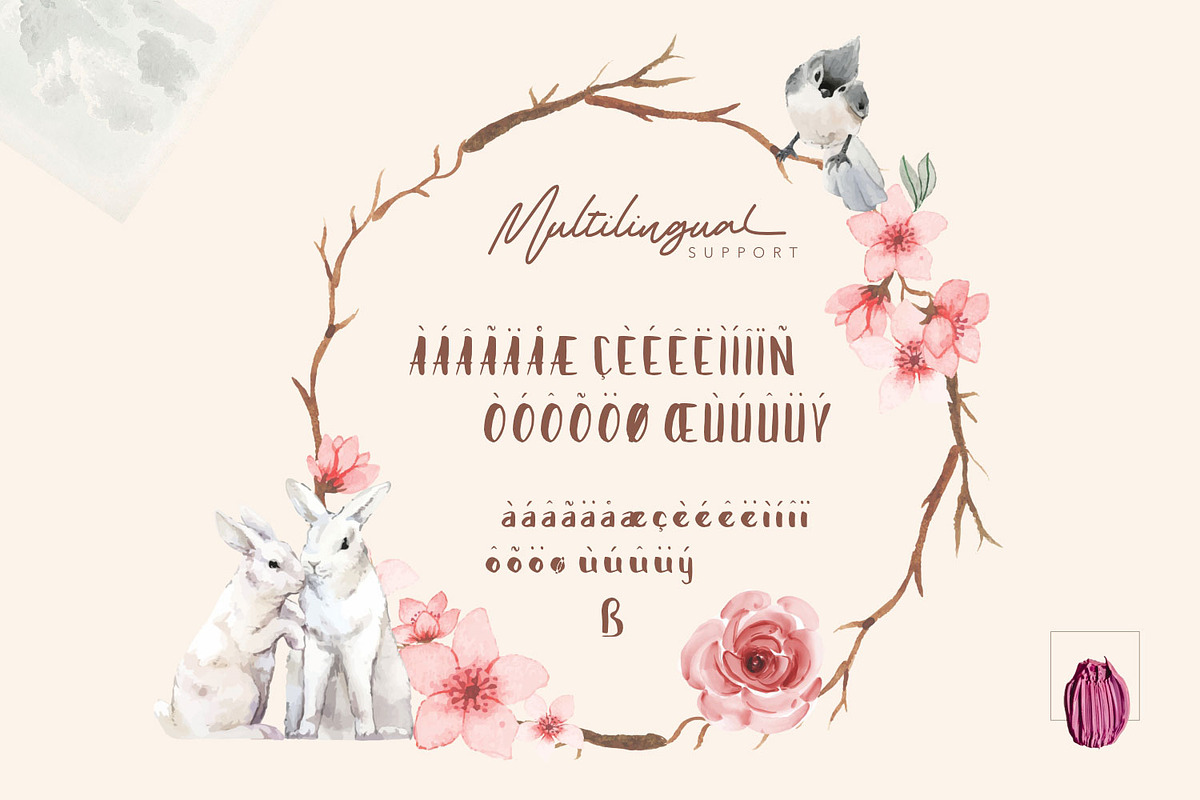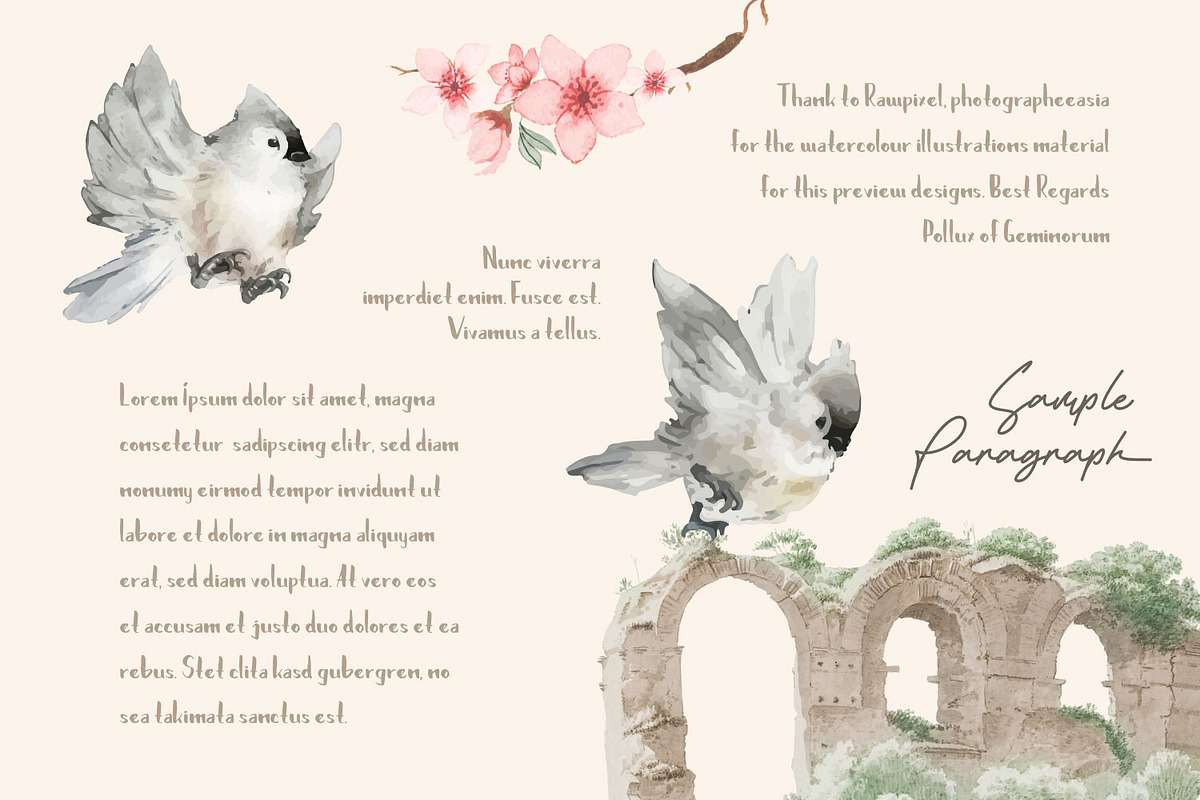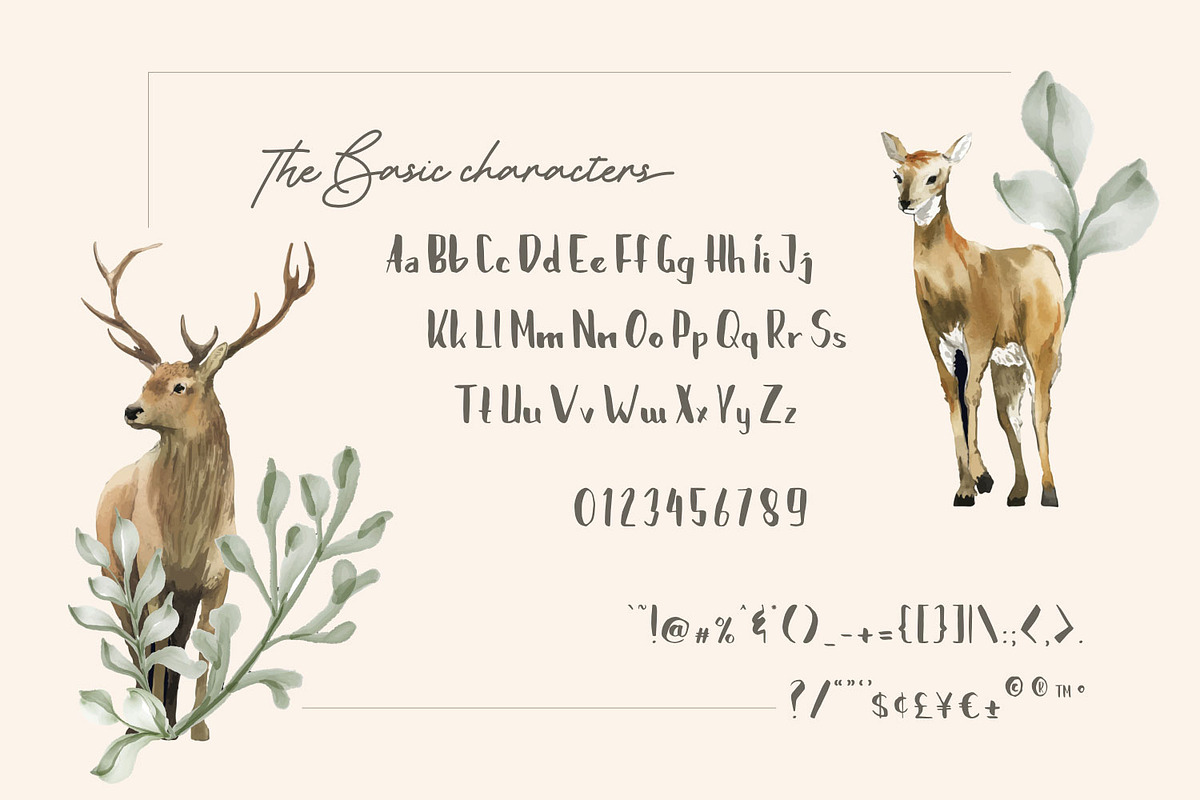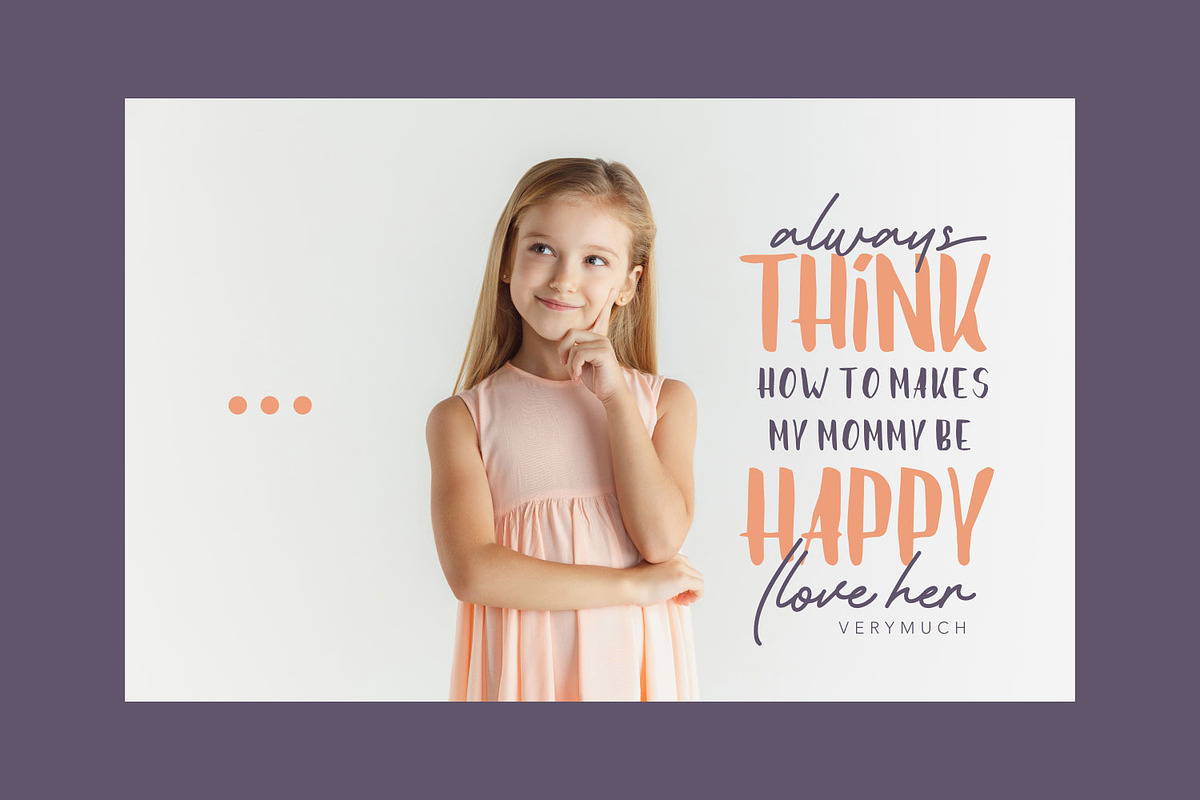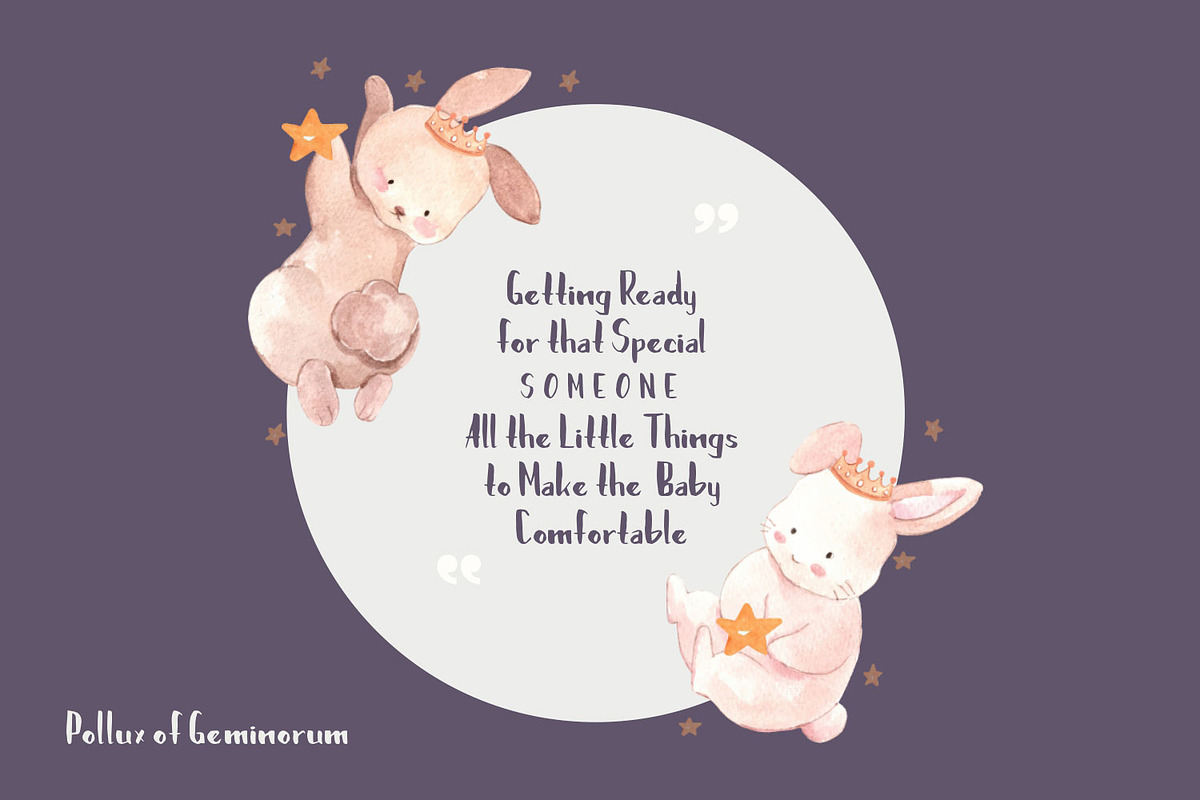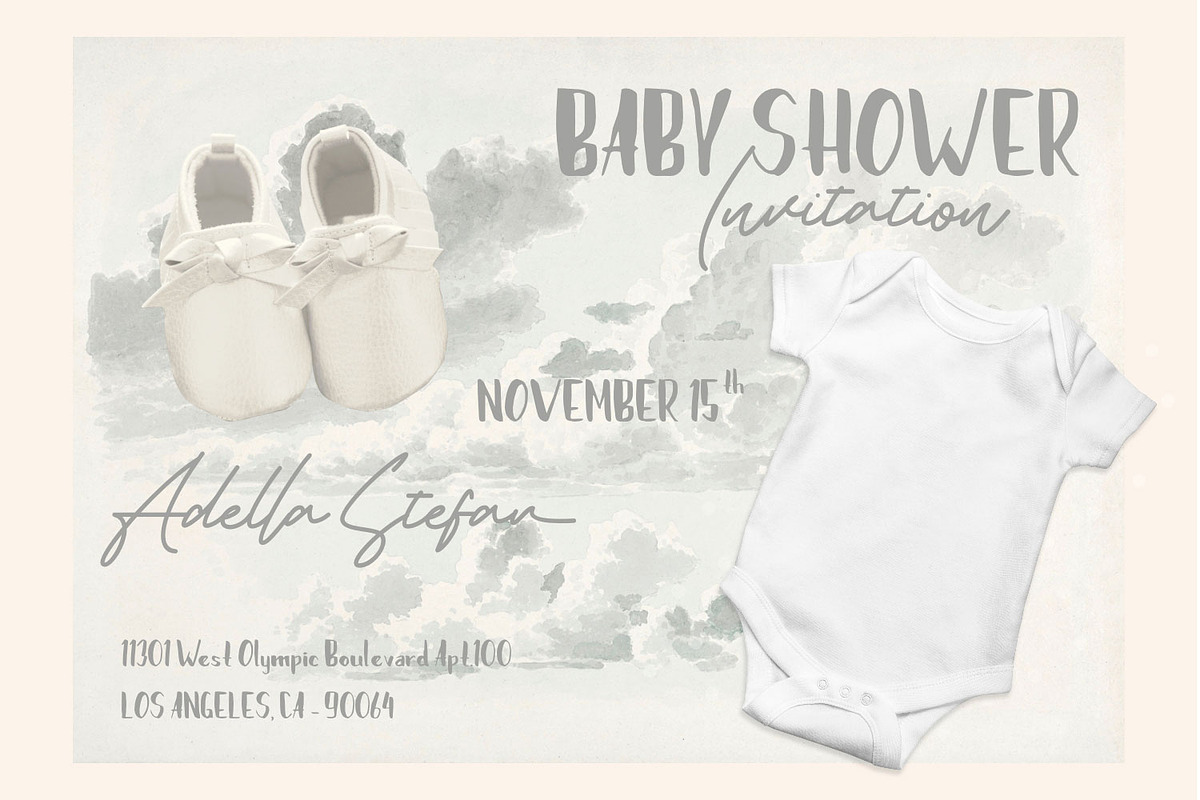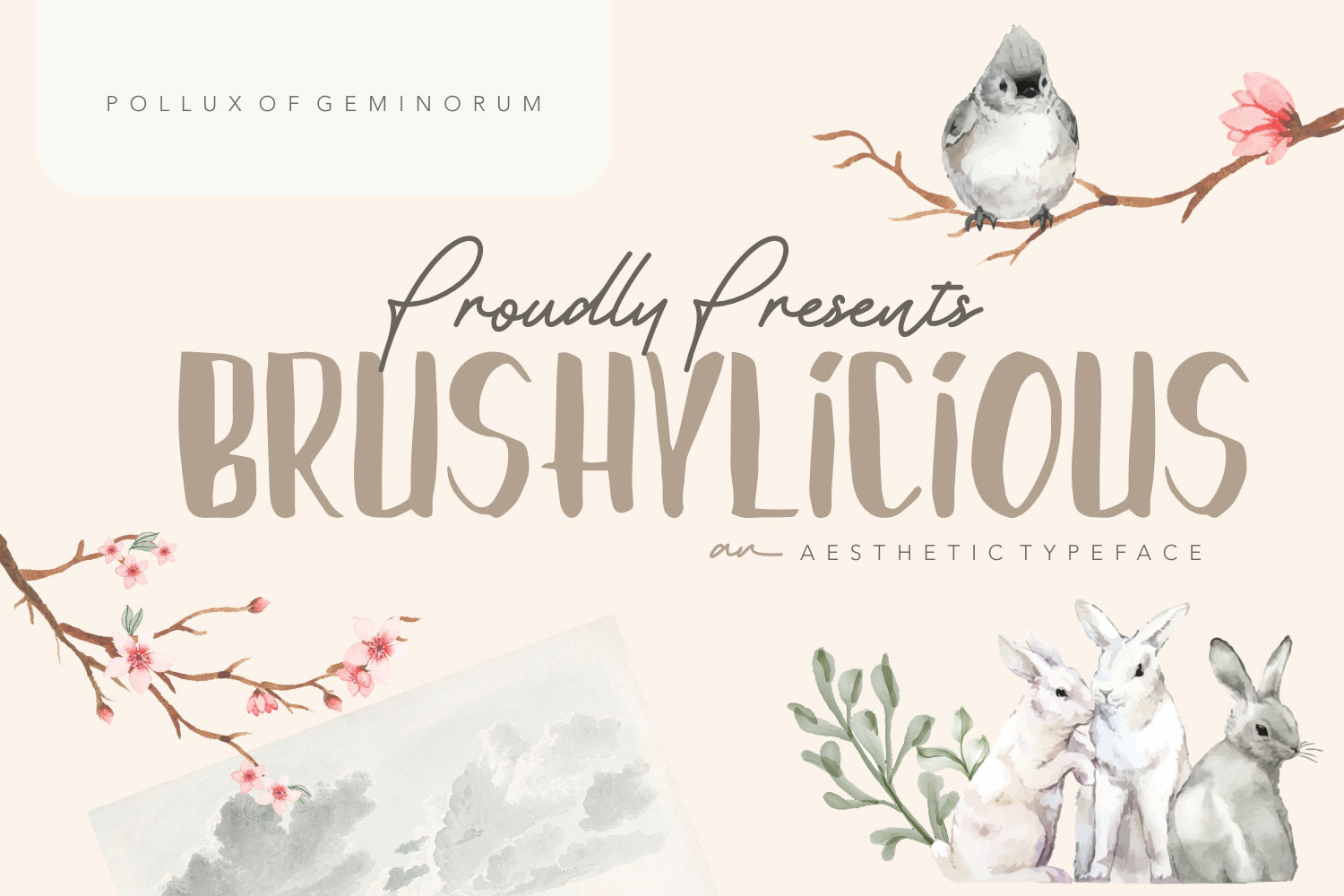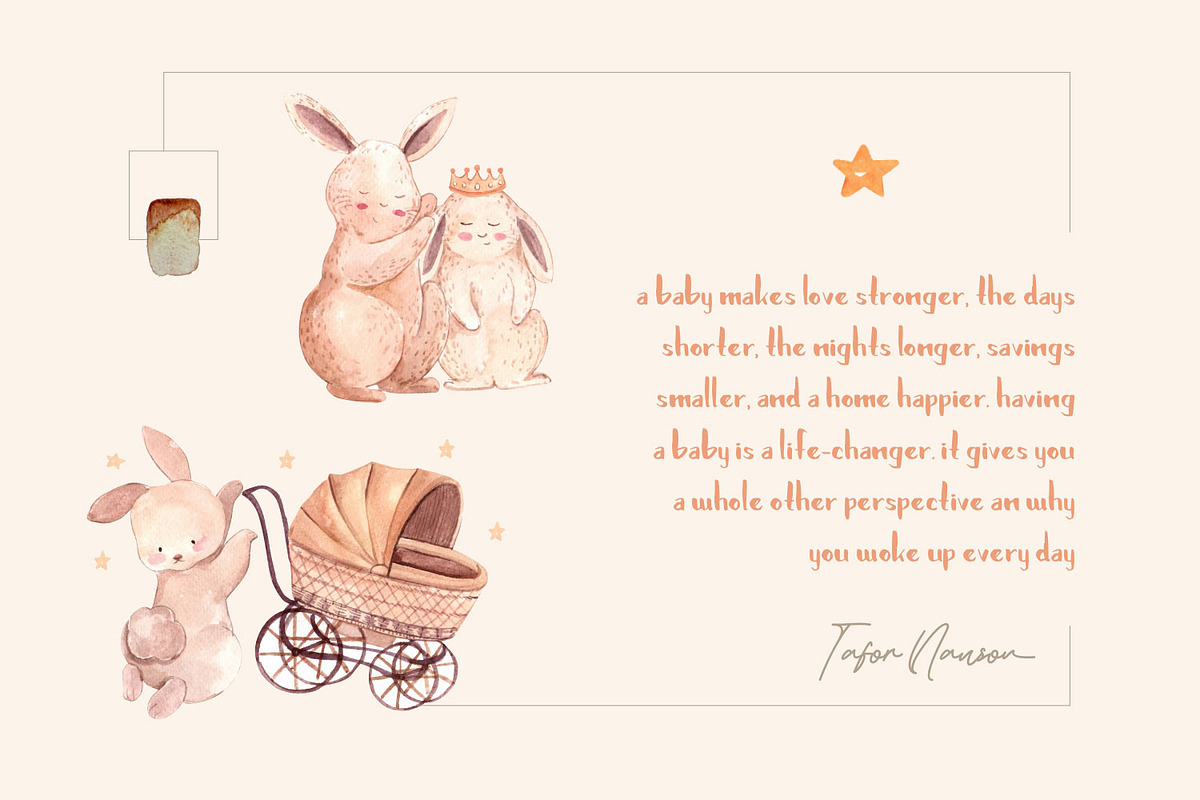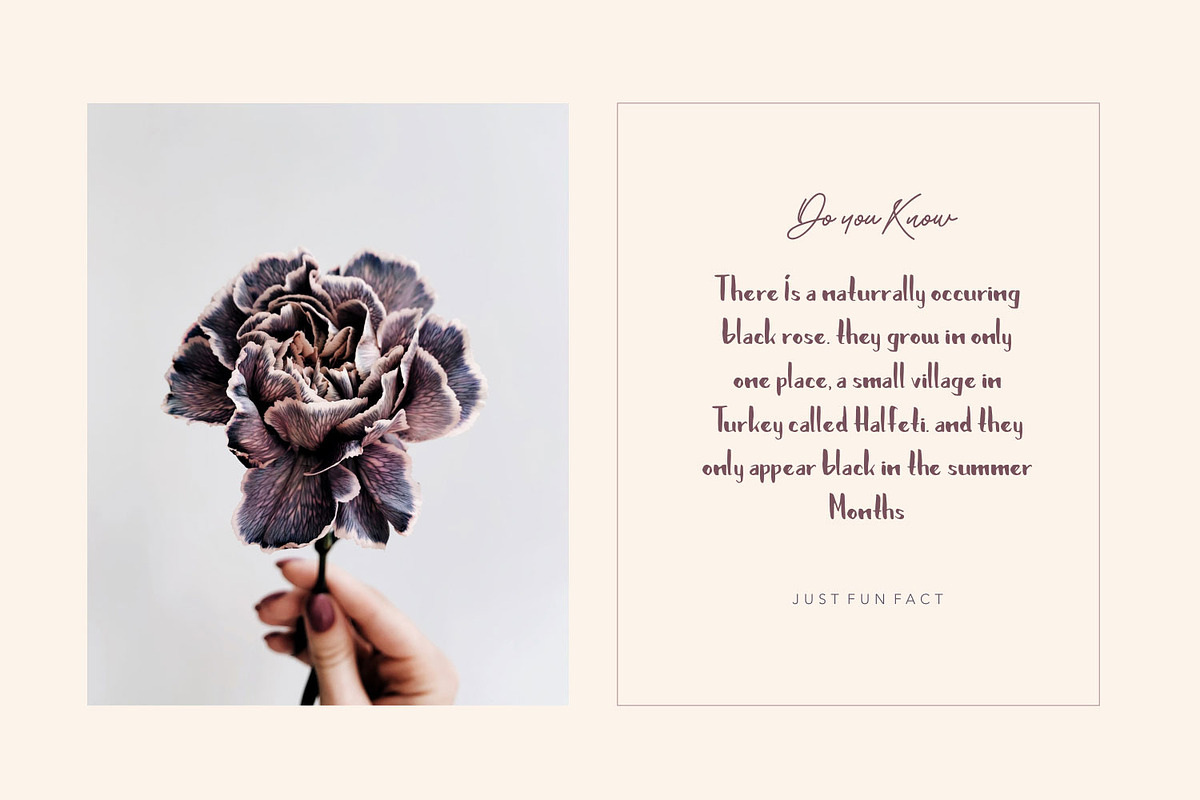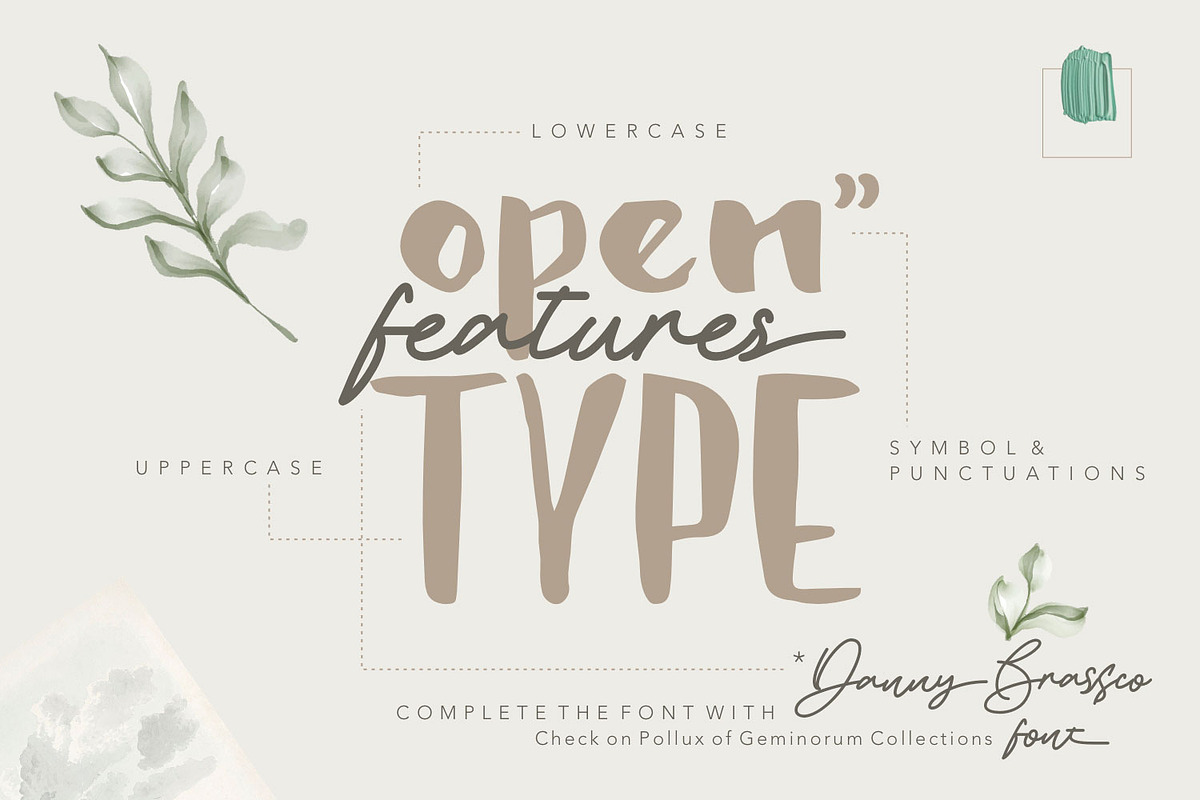
Brushylicious - Aesthetic Brush Font
Introduce your designs to the organic charm of Brushylicious, an authentic hand-painted brush font designed to make a statement. With its natural strokes and aesthetic flow, this typeface is the perfect companion for creators looking to add a personal, high-end touch to their projects.
Whether you are crafting a standout logo, elegant wedding invitations, catchy social media headers, or professional branding, Brushylicious delivers versatility and style in every character.
- Full Character Set: Uppercase, Lowercase, Numbers, and Punctuation.
- Multilingual Support: Ensuring your designs reach a global audience.
- Professional Features: Smooth brush textures and optimized kerning.